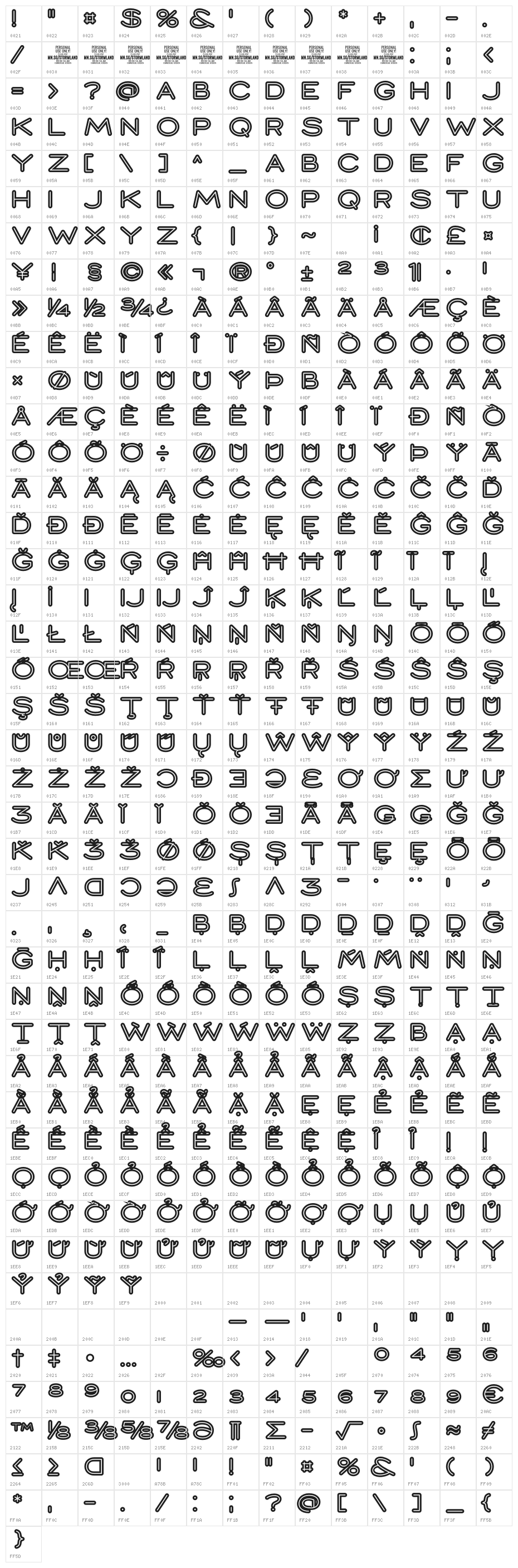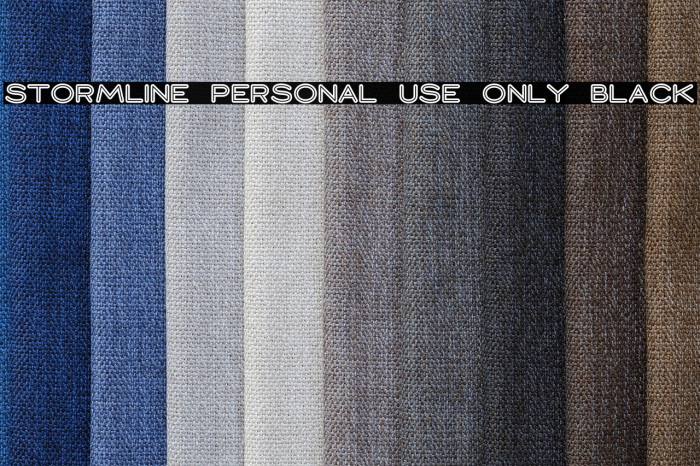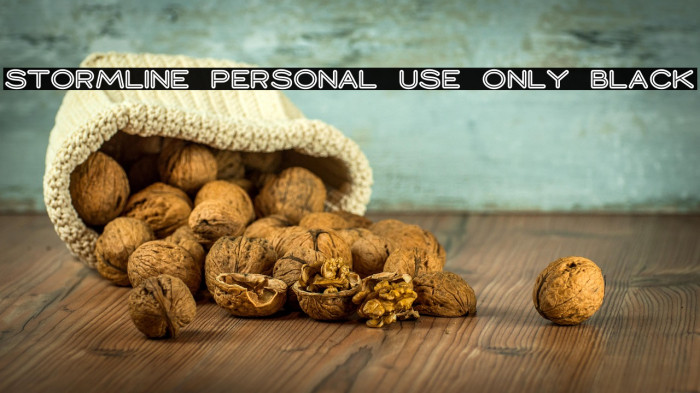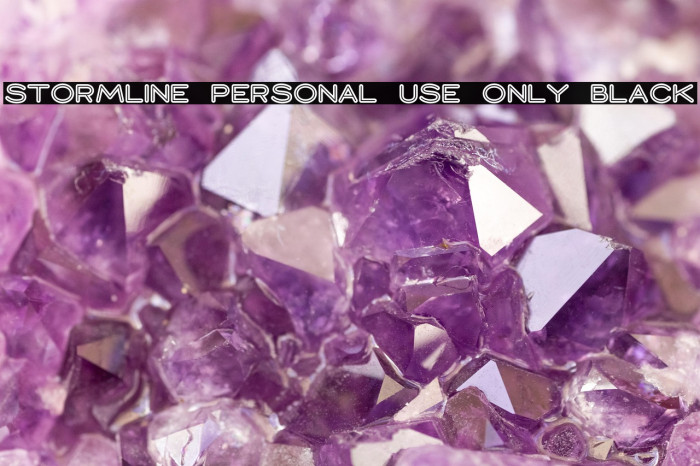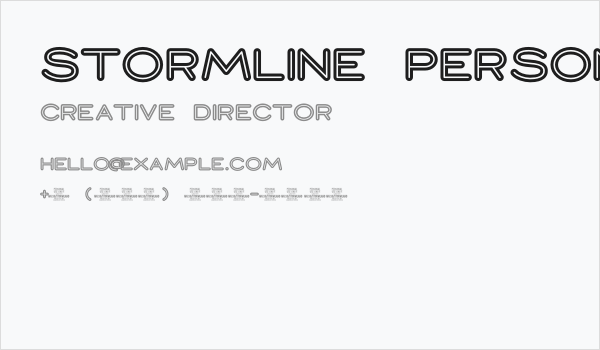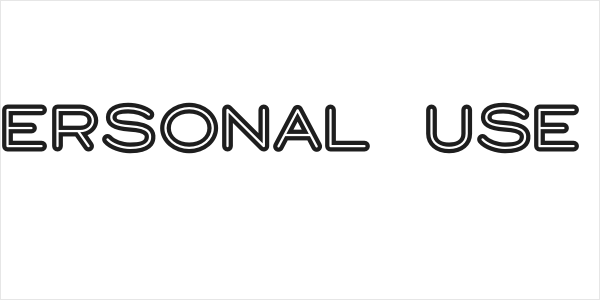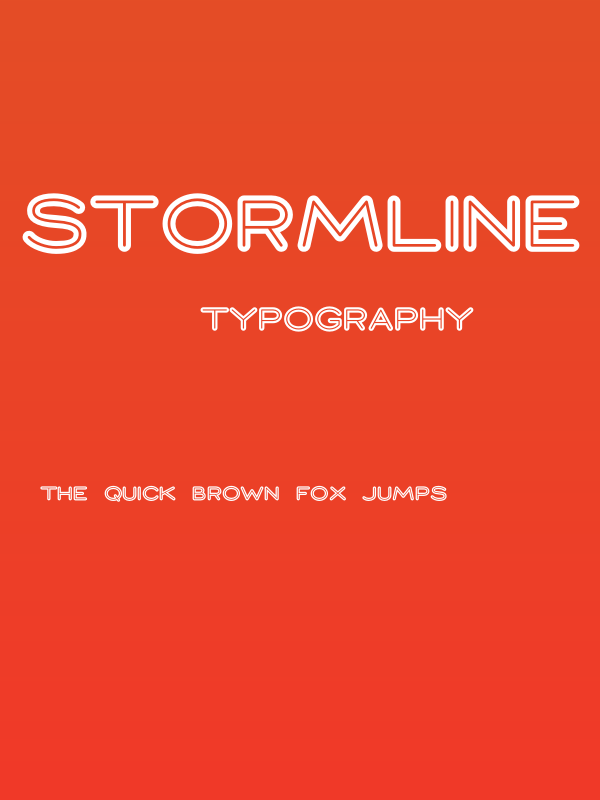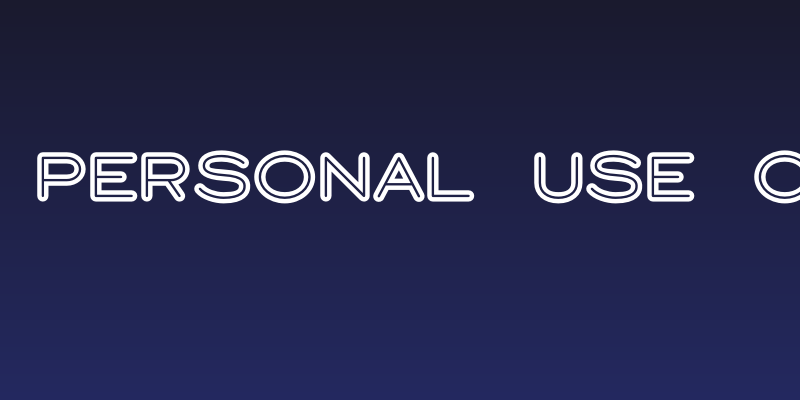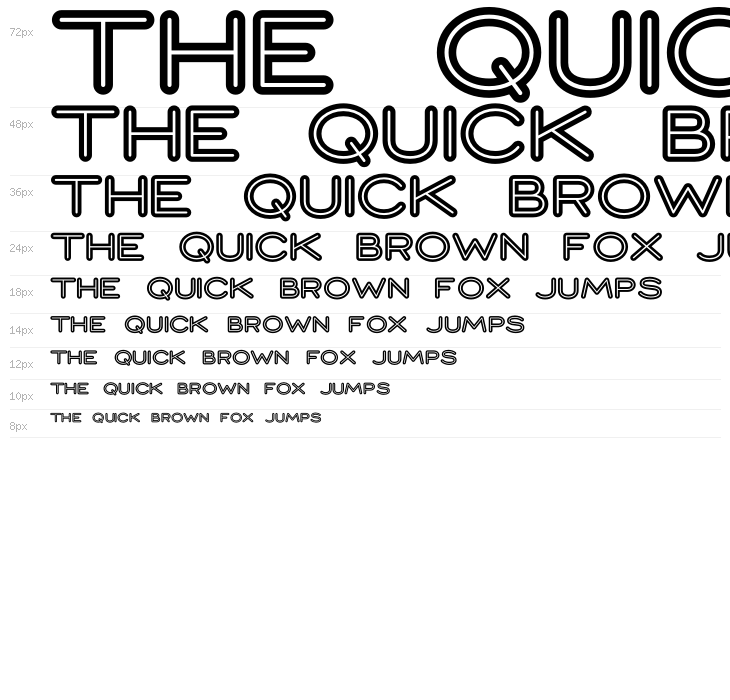
Stormline PERSONAL USE ONLY Black Font
Stormline PERSONAL USE ONLY Black Description
This font features a bold, modern design with a double-line structure that creates a striking outline effect. The characters are uppercase and maintain a consistent width, giving a uniform appearance. The style is clean and geometric, with rounded edges that soften the overall look. The font's unique outline makes it highly suitable for attention-grabbing headlines or titles. The spacing between characters is normal, ensuring readability while maintaining its distinctive style. The font's high contrast between the thick outer lines and the inner space adds to its visual impact.